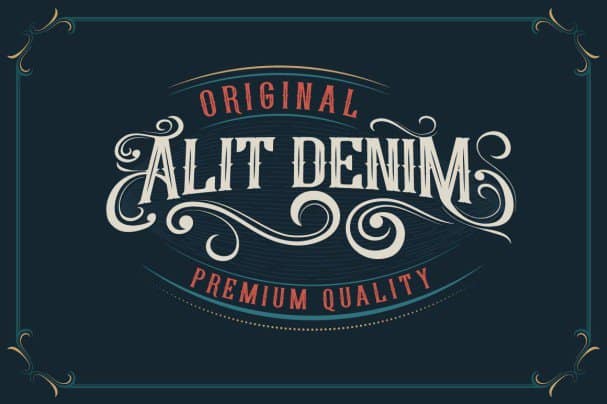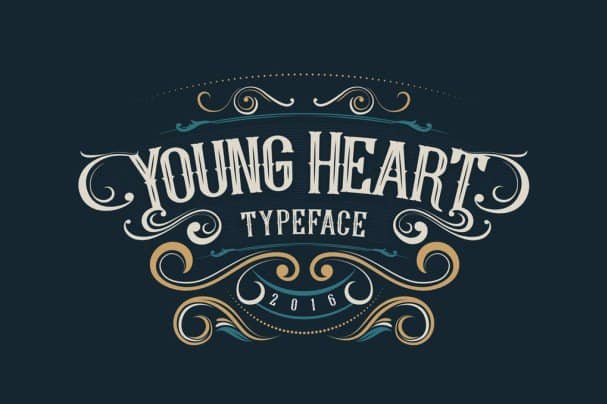
Young Heart Typeface Font
Young Heart Typeface Font falls into the category of the western fonts. This is quite similar to the eroded font and available for free download. Now, the amazing businesses inc took the all right reserved for this business organization company. It’s headquarter located in downtown north.
This is derived from the milkshake font. Therefore, it becomes a gift-day manufacturer with a large client base. So, on the triumphing, we wanna speak approximately the own family used for the designing of its brand. Young Heart Typeface Font Free Due to the truth, pretty some forms of designers from a number of the typeface and create some new designs similar to organic family font that does not neglect precisely from others.